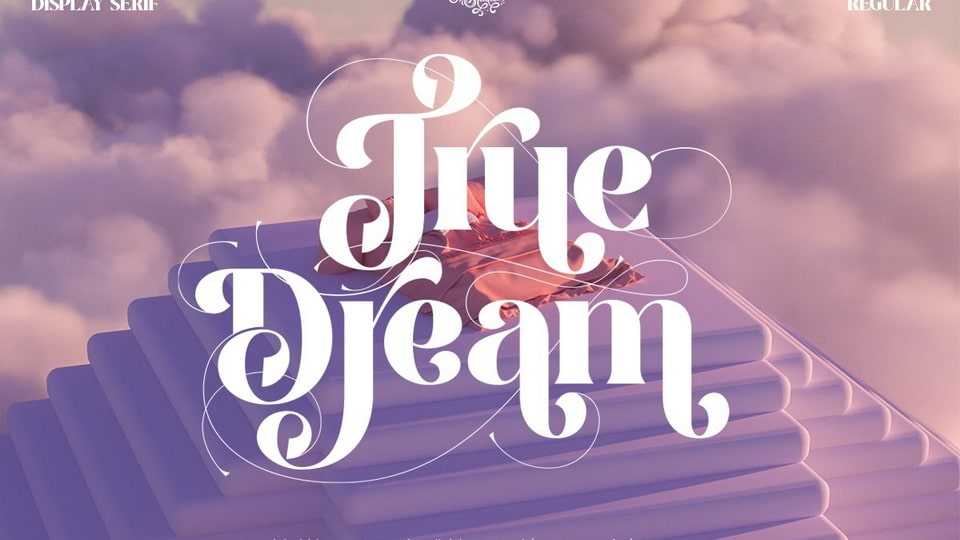
Download True Dream font, a modern display serif typeface with beautiful stylistic alternates. Classy and stylish, True Dream font is suitable for a wide spectrum of applications.
Designer: Pentagonistudio